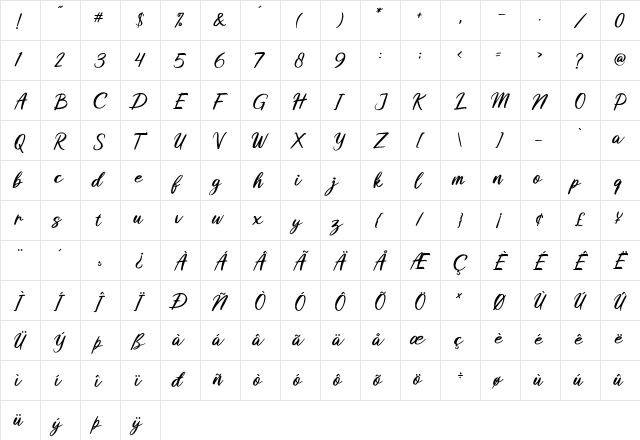
Butterly Regular
| Foundry | Andhi Yulianto great19 |
| Designer | Andhi Yulianto |
Design Context for Butterly Typeface
Butterly is a composed and adaptable typeface that performs quietly and consistently across a wide range of design contexts.